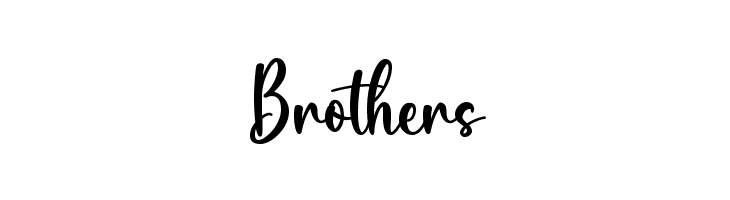
A playful, handwritten script font with smooth, flowing curves.
A playful, handwritten font with flowing, cursive-like strokes and varying line thickness.